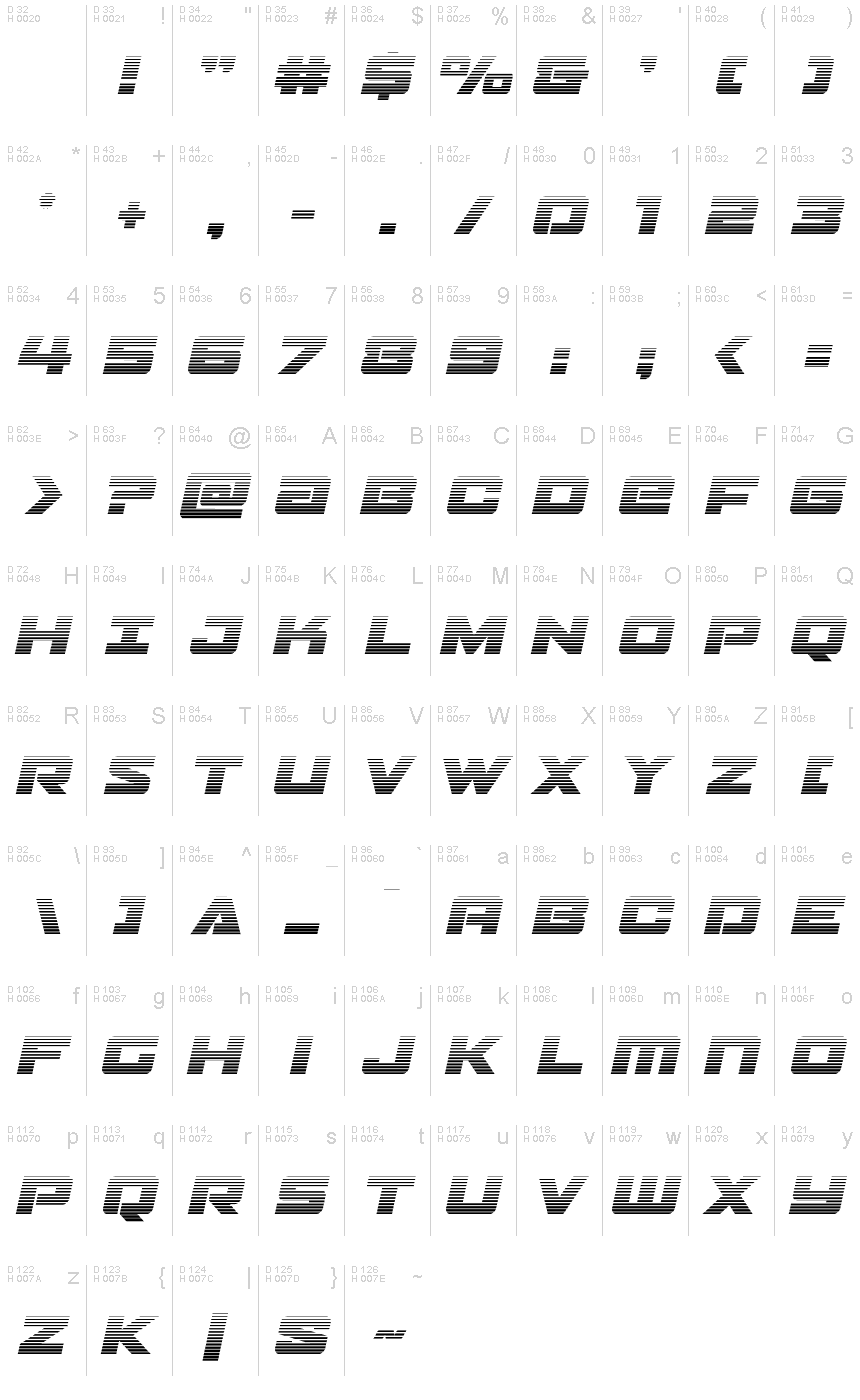
Power Broker Gradient Italic
Power Broker Gradient Italic stands out as a commanding force in the realm of display fonts. Crafted by Iconian Fonts, this member of the Power Broker family boasts a futuristic style that encapsulates both strength and forward-thinking design. With its extra-bold weight and extra-expanded width, it exudes confidence and presence that cannot be overlooked.
The italicized stance of Power Broker Gradient Italic adds dynamism to its character, suggesting movement and action, which makes it an excellent choice for creative projects that aim to make a bold statement or evoke a sense of innovation. Its unique gradient effect gives depth to the letterforms, creating an almost three-dimensional appearance that captivates the eye.
Given its distinctive aesthetic appeal, this font is not just visually striking but also versatile enough for various applications including branding, advertising campaigns, poster designs, and any project where a touch of modernity is desired. Power Broker Gradient Italic is more than just a typeface-it's a declaration of assertiveness and contemporary flair.
The italicized stance of Power Broker Gradient Italic adds dynamism to its character, suggesting movement and action, which makes it an excellent choice for creative projects that aim to make a bold statement or evoke a sense of innovation. Its unique gradient effect gives depth to the letterforms, creating an almost three-dimensional appearance that captivates the eye.
Given its distinctive aesthetic appeal, this font is not just visually striking but also versatile enough for various applications including branding, advertising campaigns, poster designs, and any project where a touch of modernity is desired. Power Broker Gradient Italic is more than just a typeface-it's a declaration of assertiveness and contemporary flair.